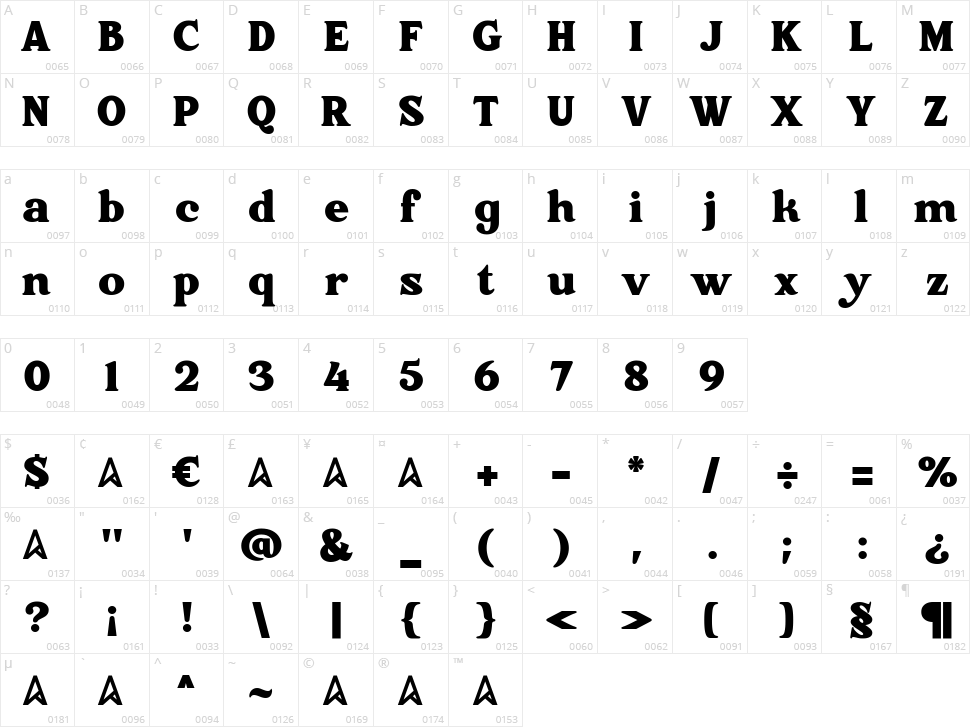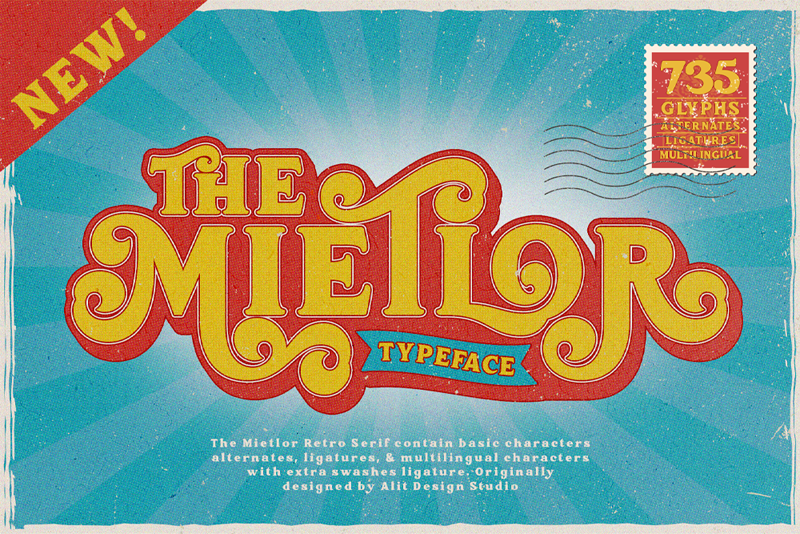
The Mietlor
Presenting the ✨The Mietlor Typeface✨ by alitdesign.
The Mietlor Typeface is inspired by stylish designs from the 80s to 90s. At that time the font style like "The Mietlor Typeface" had a firm and trendy impression. The Mietlor Typeface has a wide selection of alternative characters and swashes that make it easy to create bold retro-style designs.